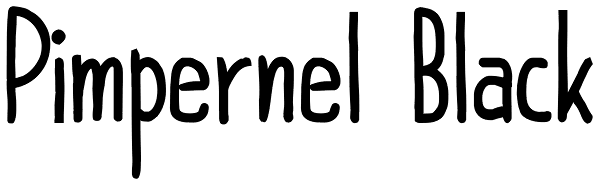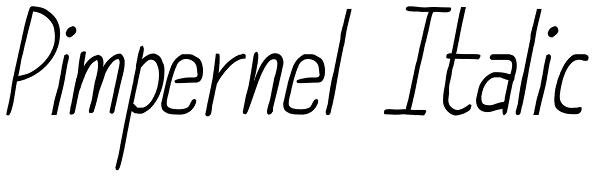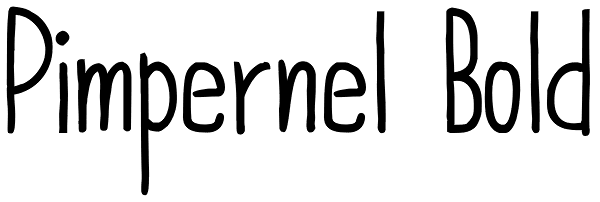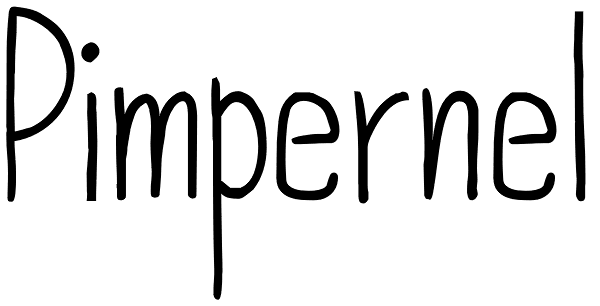
Pimpernel
Pimpernel is a tall and narrow typeface. It was handwritten on course paper to create a certain roughness, yet it retains an elegant feel. Pimpernel comes in 6 great styles, all of which will add that little extra oomph to your designs.